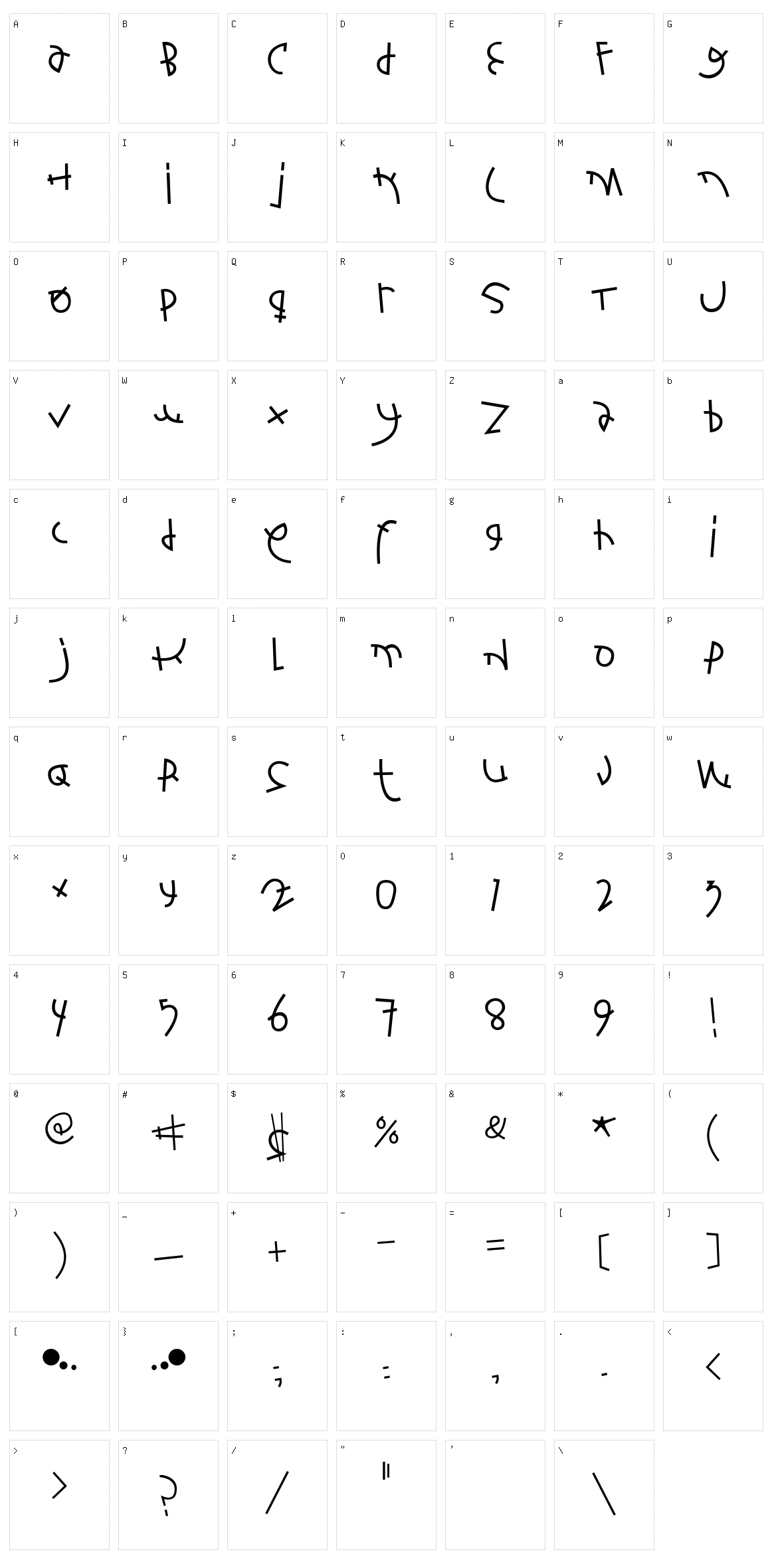
The free font Fontbardeo is carefully designed by Pablo Espinosa, showcasing a thoughtful balance of creativity and usability and falls under the Cartoon font style. When you download the ZIP file, it contains only 28.16 KB of font files, making it lightweight and quick to download. Please review the license details below to understand permitted usage and distribution rights. If license information is not available, we recommend using this font for personal projects only or contacting the author directly for commercial usage permissions.